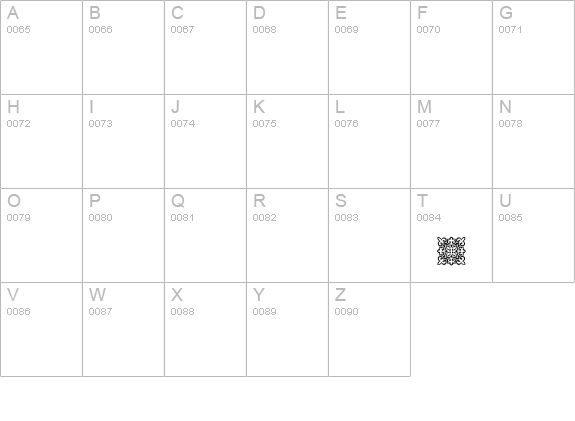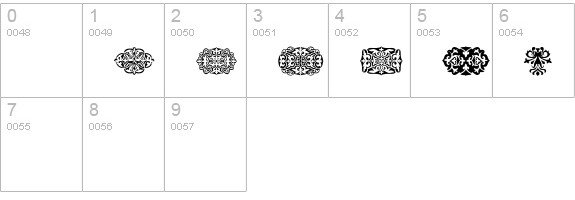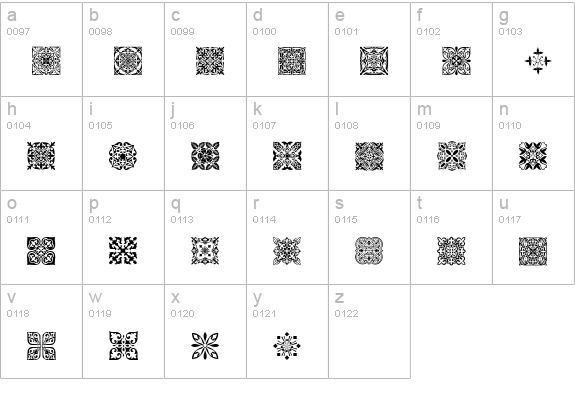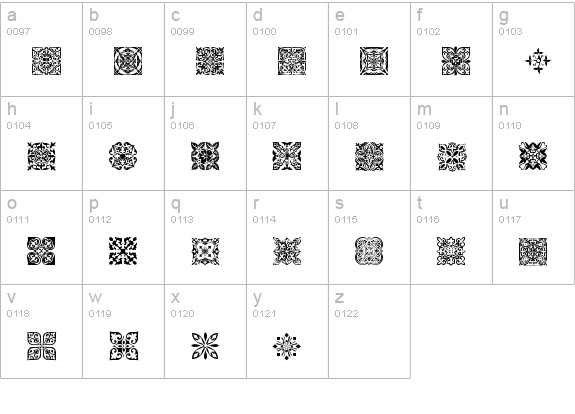
SL Square Ornaments Font Details
SL Square Ornaments is a visually stunning font that exudes elegance and sophistication. Its unique square-shaped ornaments bring a touch of modernity to any design project. This font is perfect for adding a touch of class to invitations, posters, logos, and more. The versatility of SL Square Ornaments allows it to be used in a variety of contexts, from formal events to contemporary designs. Its clean lines and intricate details make it a standout choice for those seeking a font that is both eye-catching and refined. One of the best features of SL Square Ornaments is that it is completely free! You can easily download this font at FontsMarket.com, where it is readily available for all your creative endeavors. Whether you are a professional designer or a hobbyist, this font is a must-have addition to your collection. With SL Square Ornaments, you can effortlessly elevate your designs to new heights. Its timeless appeal and attention to detail will captivate your audience and leave a lasting impression. Don't miss out on the opportunity to add this exceptional font to your toolkit – download SL Square Ornaments today and unleash your creativity.